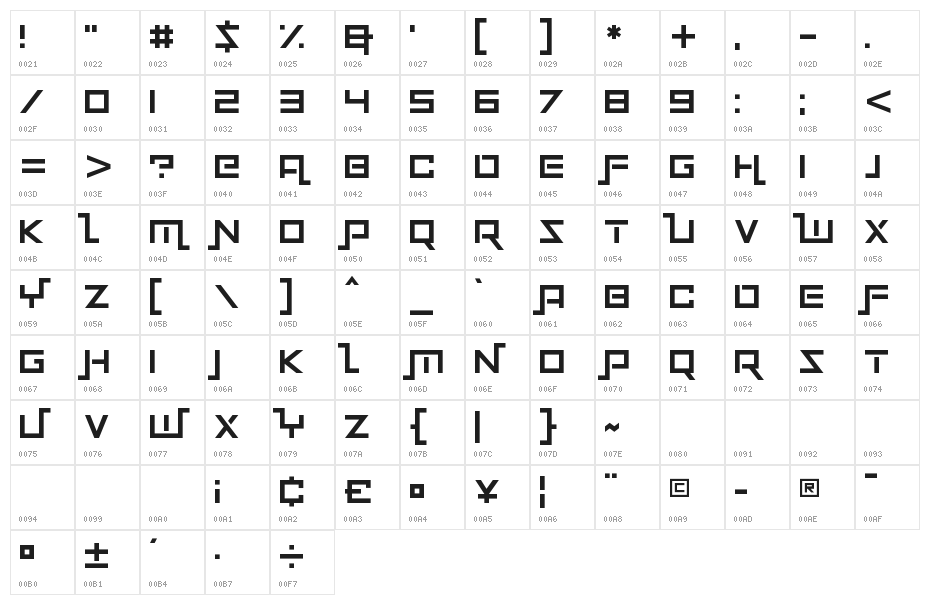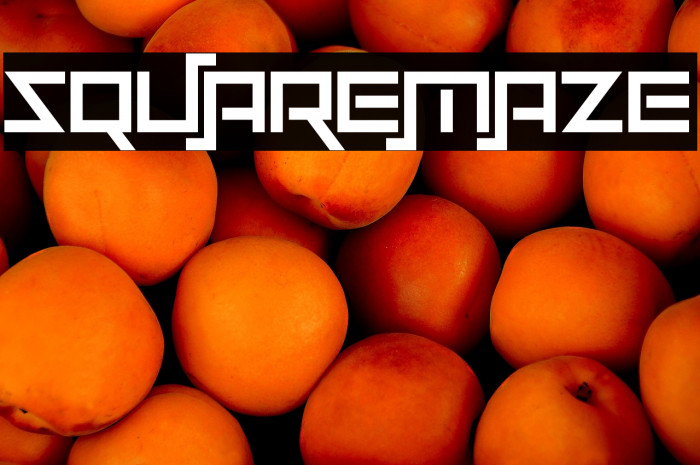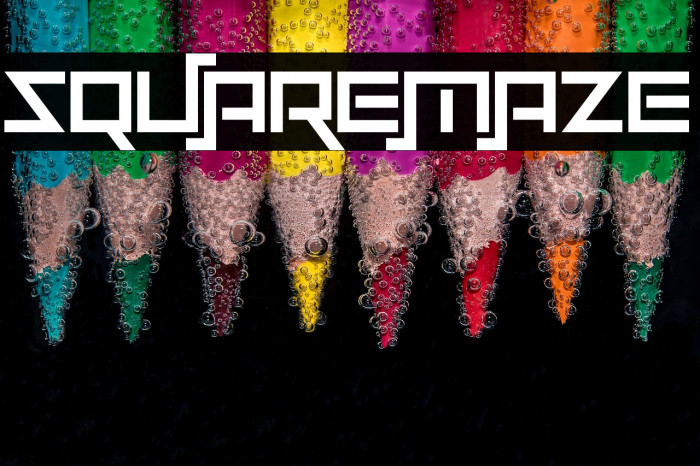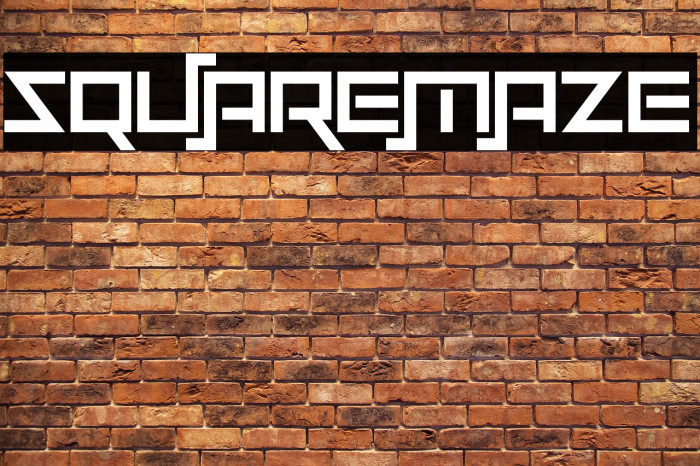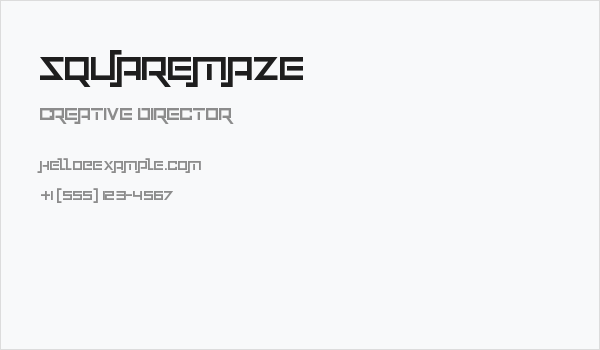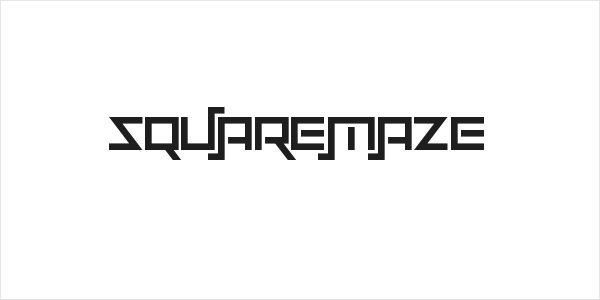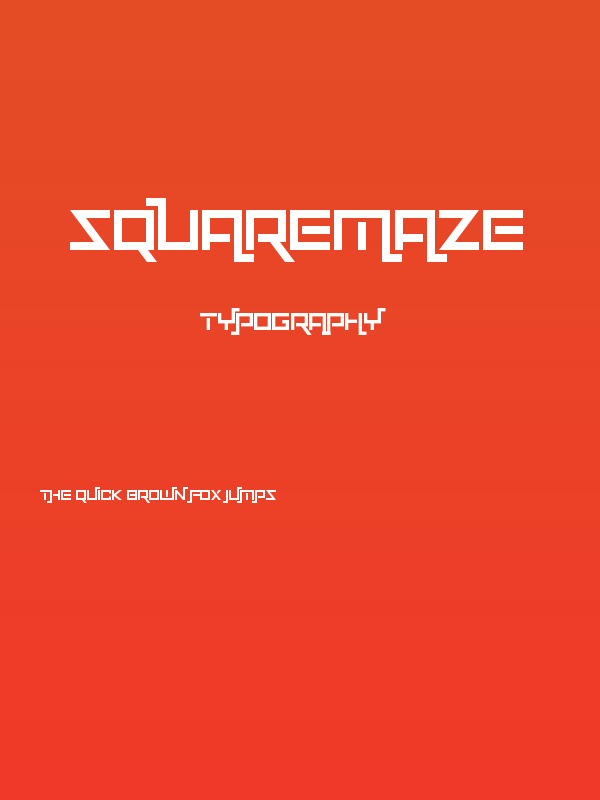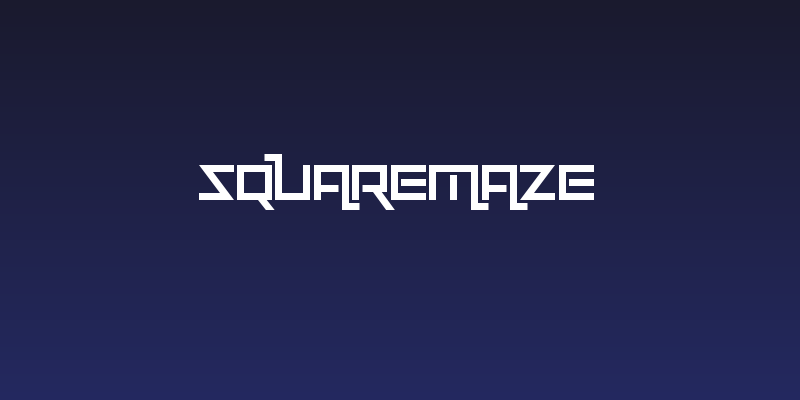
Squaremaze Font
Squaremaze Description
This font features a bold, geometric design with a futuristic and maze-like appearance. The characters are constructed with sharp angles and straight lines, creating a sense of movement and complexity. The uppercase and lowercase letters maintain a consistent style, with unique cuts and intersections that give each character a distinctive look. Numbers and special characters follow the same design principles, ensuring uniformity across all elements. The font's structure is both artistic and functional, making it suitable for creative and modern applications.
| Overall Style | Futuristic |
| Proposed Projects | Ideal for sci-fi themed projects, video game titles, modern branding, and digital artwork. |